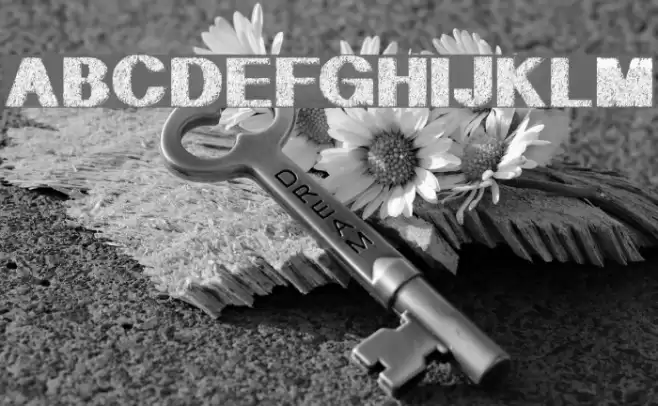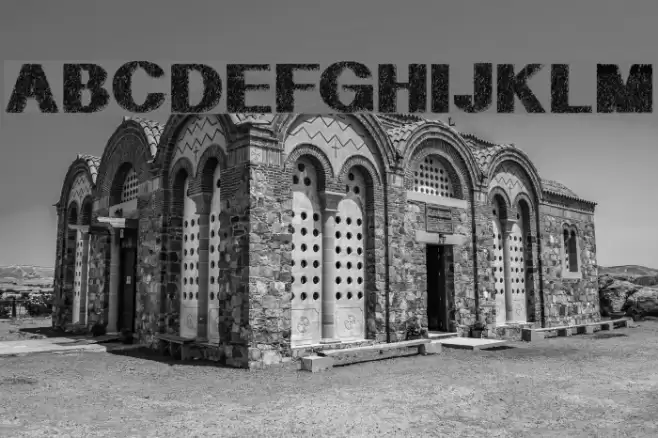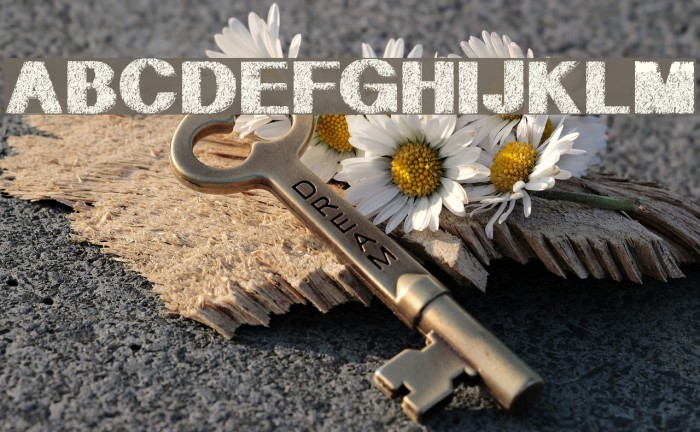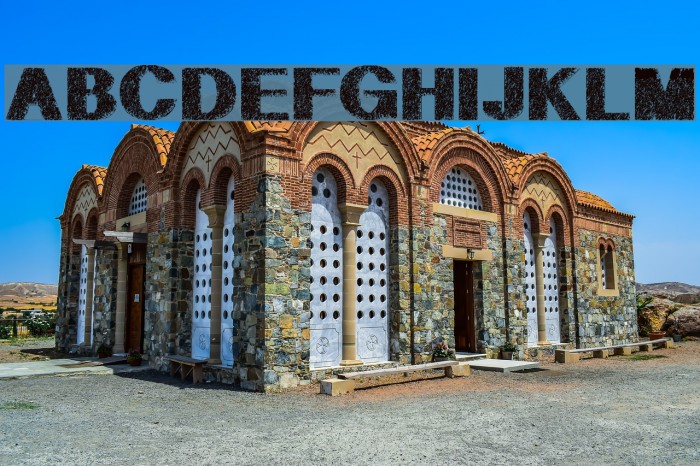
GeometricPetras Font
GeometricPetras Description
This font features a bold, textured appearance with a distressed, grunge-like aesthetic. The uppercase letters are robust and impactful, making them ideal for creating a strong visual presence. Each character is filled with a rough, stippled pattern that adds a unique tactile quality, reminiscent of vintage printing techniques. The overall design is both eye-catching and versatile, suitable for a variety of creative projects that require a bold statement. The font's geometric structure ensures clarity and readability, even with its textured style.
A bold, textured font with a distressed, vintage aesthetic from Crazy fonts.
- Proposed Projects: Ideal for posters, album covers, branding materials, and any project seeking a bold, vintage-inspired look.
- Overall Style: Vintage